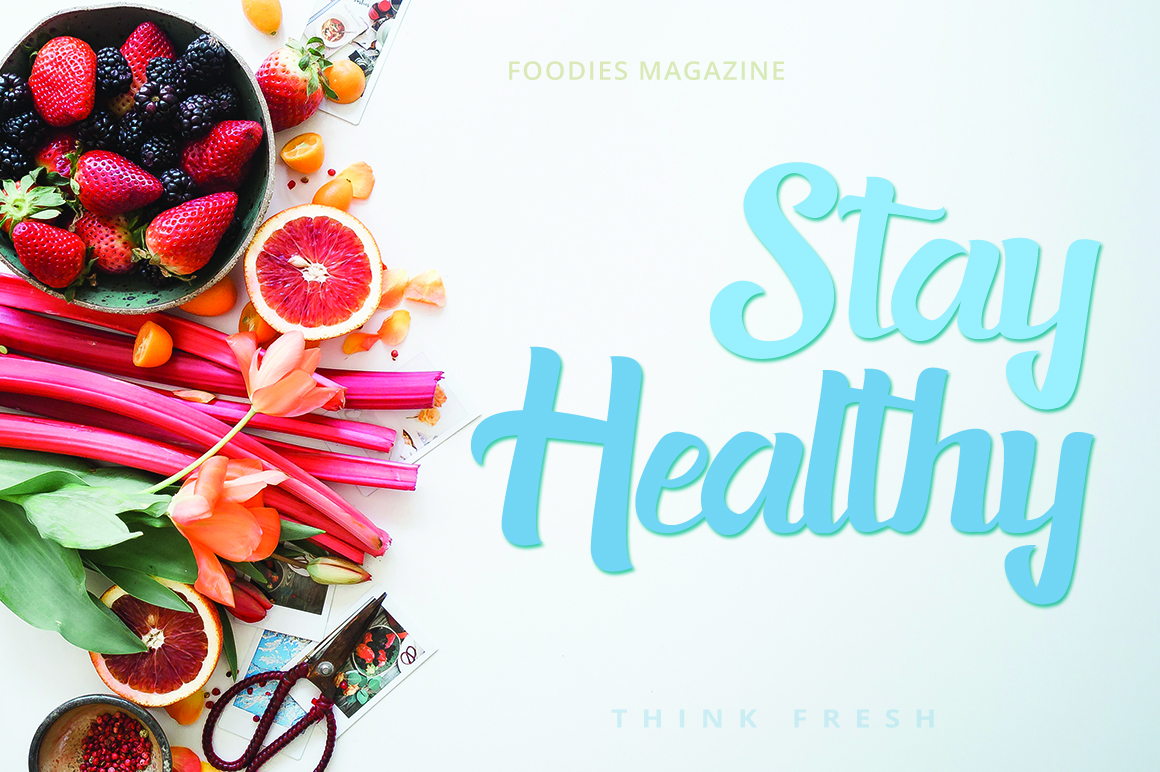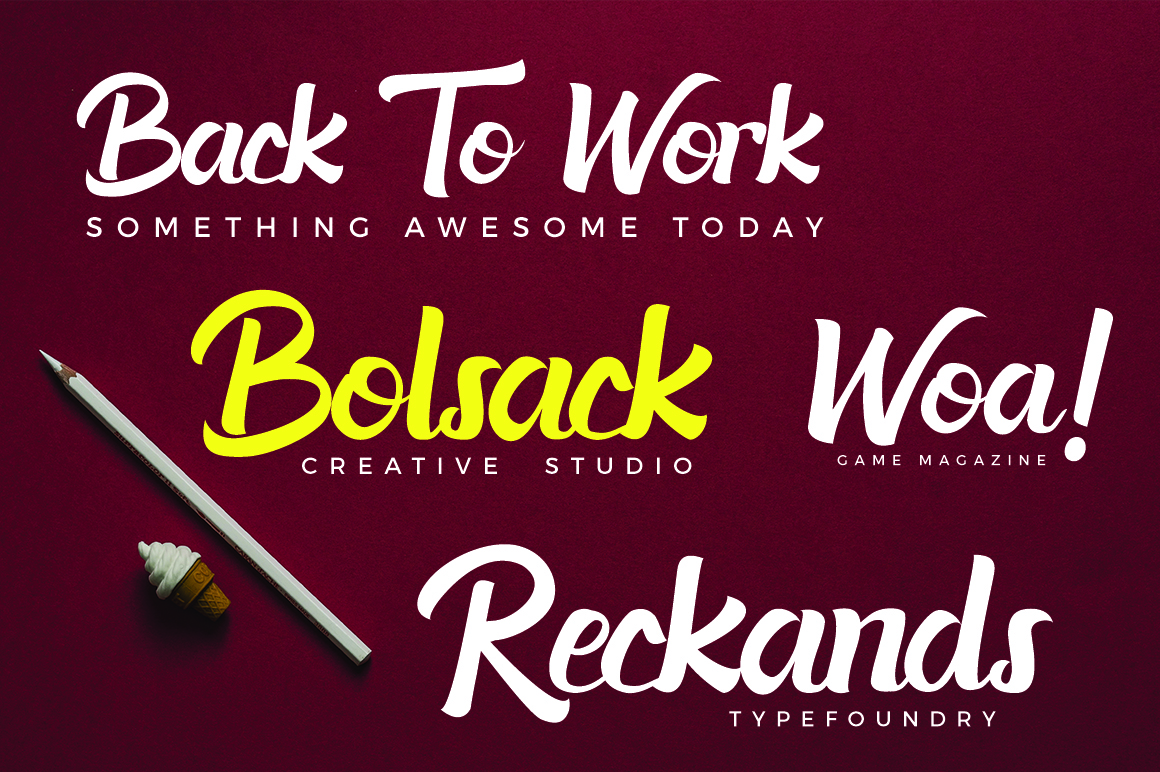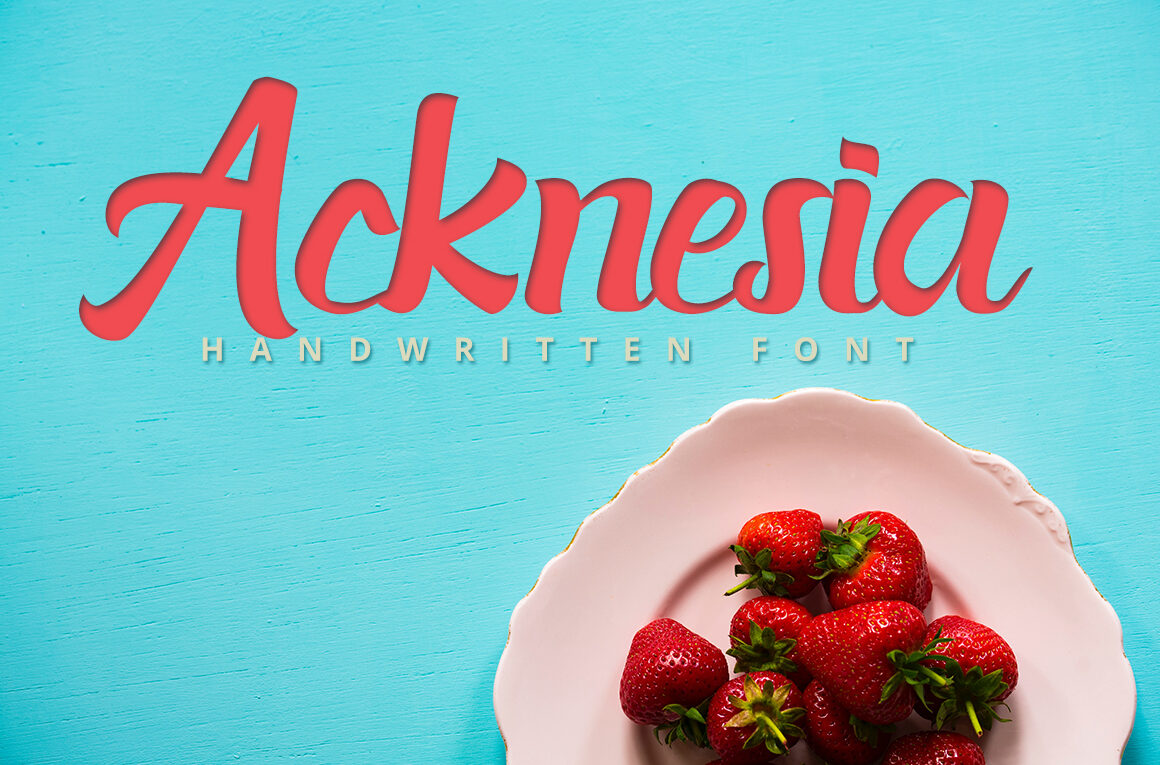
Acknesia Font: Elevate Your Designs with Elegance and Drama
In the world of typography, fonts play a crucial role in conveying messages, evoking emotions, and creating lasting impressions. For designers and crafters seeking a unique and captivating font, Acknesia is an exceptional choice. This hand-lettered script font boasts a clear style and dramatic movement, making it perfect for logotypes, headlines, and displays.
What is Acknesia Font?
Acknesia is a meticulously crafted hand-lettered script font that exudes elegance and sophistication. Its clear style ensures legibility, while its dramatic movement adds a touch of flair, making it stand out in any design. The font’s versatility allows it to shine in various applications, from branding and advertising to packaging and digital media.
Key Features of Acknesia Font
- Hand-lettered script font: Acknesia’s unique, hand-crafted design gives it a personal and distinctive feel.
- Clear style: The font’s clear and legible style ensures that your message is conveyed with ease.
- Dramatic movement: Acknesia’s flowing lines and curves add a touch of drama, making it perfect for headlines and displays.
- Logotype friendly: The font’s elegant design makes it an excellent choice for logotypes and branding.
Uses of Acknesia Font
Acknesia’s versatility makes it suitable for a wide range of design applications, including:
- Branding and logos: Create a lasting impression with Acknesia’s elegant and distinctive design.
- Headlines and titles: Add drama and flair to your headlines and titles with Acknesia’s flowing lines and curves.
- Displays and signage: Make your displays and signage stand out with Acknesia’s clear style and dramatic movement.
- Packaging and labels: Elevate your packaging and labels with Acknesia’s sophisticated and elegant design.
- Digital media: Use Acknesia in digital media, such as social media graphics, videos, and presentations, to add a touch of elegance and drama.
Benefits of Using Acknesia Font
By incorporating Acknesia into your designs, you can:
- Elevate your brand: Create a lasting impression with Acknesia’s unique and elegant design.
- Stand out from the crowd: Acknesia’s dramatic movement and clear style ensure that your designs don’t go unnoticed.
- Enhance readability: The font’s clear style ensures that your message is conveyed with ease, making it perfect for body text and headlines.
- Add versatility: Acknesia’s versatility makes it suitable for a wide range of design applications, from branding to digital media.
Tips for Using Acknesia Font
To get the most out of Acknesia, consider the following tips:
- Use it sparingly: Acknesia’s dramatic movement and clear style make it perfect for headlines and titles, but use it sparingly to avoid overwhelming the reader.
- Pair it with complementary fonts: Combine Acknesia with complementary fonts to create a unique and visually appealing design.
- Experiment with colors and textures: Add depth and interest to your designs by experimenting with different colors and textures.
Acknesia font is an exceptional choice for designers and crafters seeking a unique and captivating font. Its hand-lettered script design, clear style, and dramatic movement make it perfect for logotypes, headlines, and displays. With its versatility and elegance, Acknesia is sure to elevate your designs and make a lasting impression.